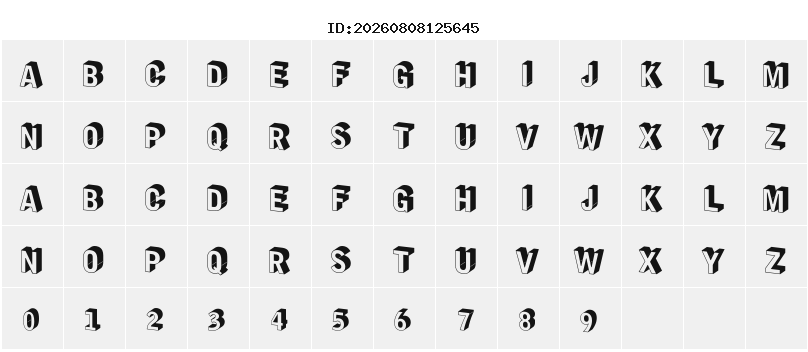
• Font Name: PonyMaker
• Designer: Xerographer Fonts Max Infeld
• Description: Made at Xerographer Studios in Chico,CA
About PonyMaker.ttf
PonyMaker.ttf is a modern, elegant sans-serif font designed for ultimate readability and visual harmony. Perfect for branding, headlines, web design, and print materials.